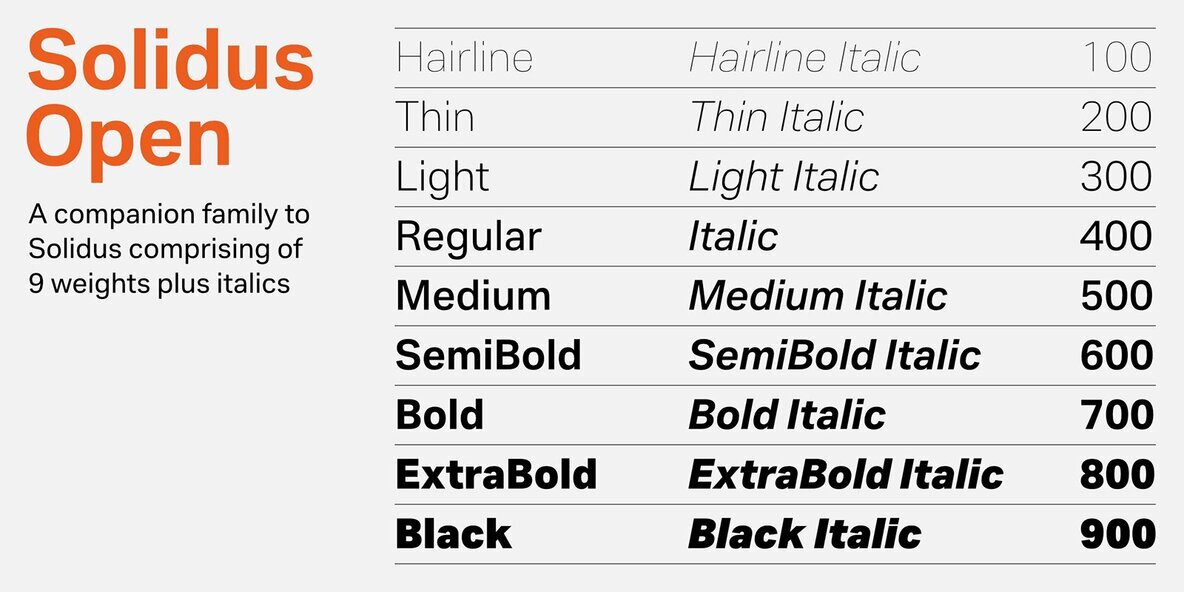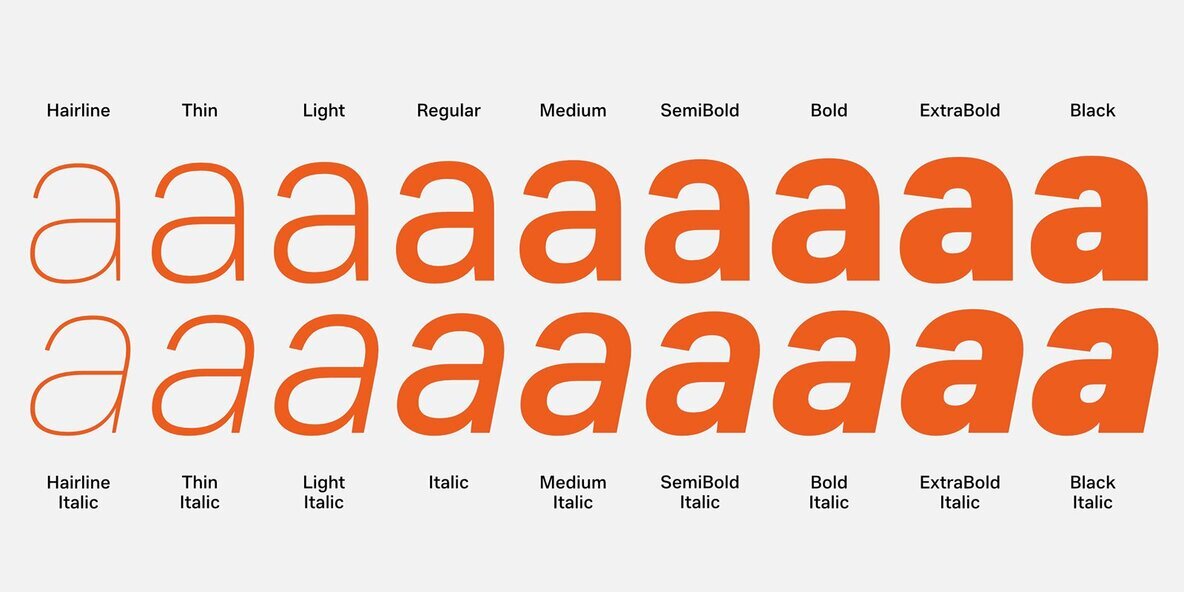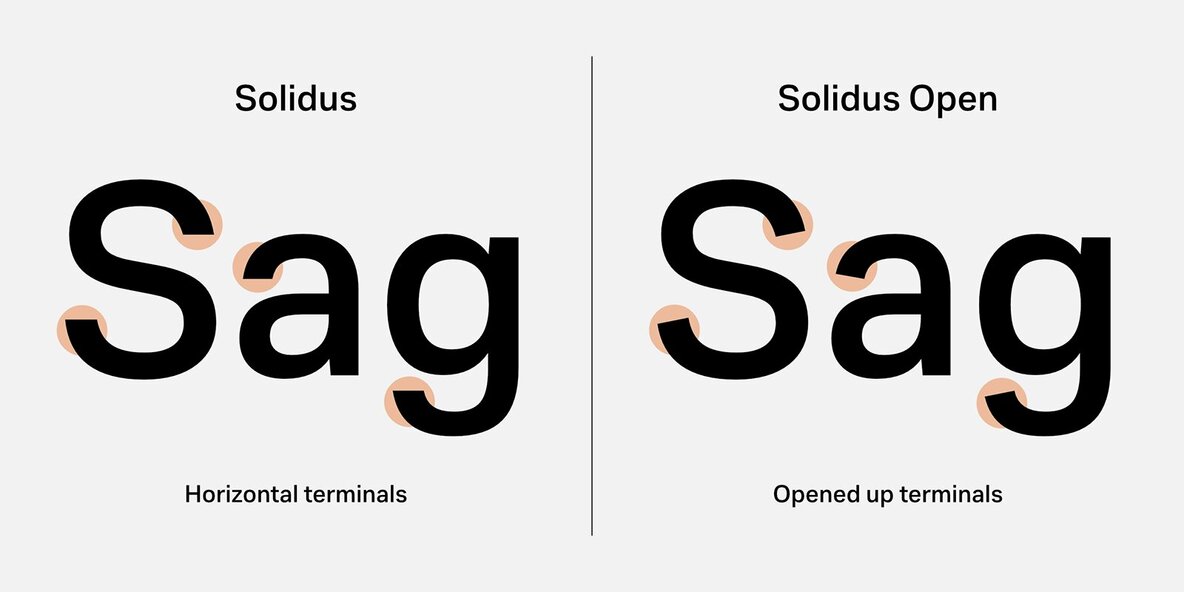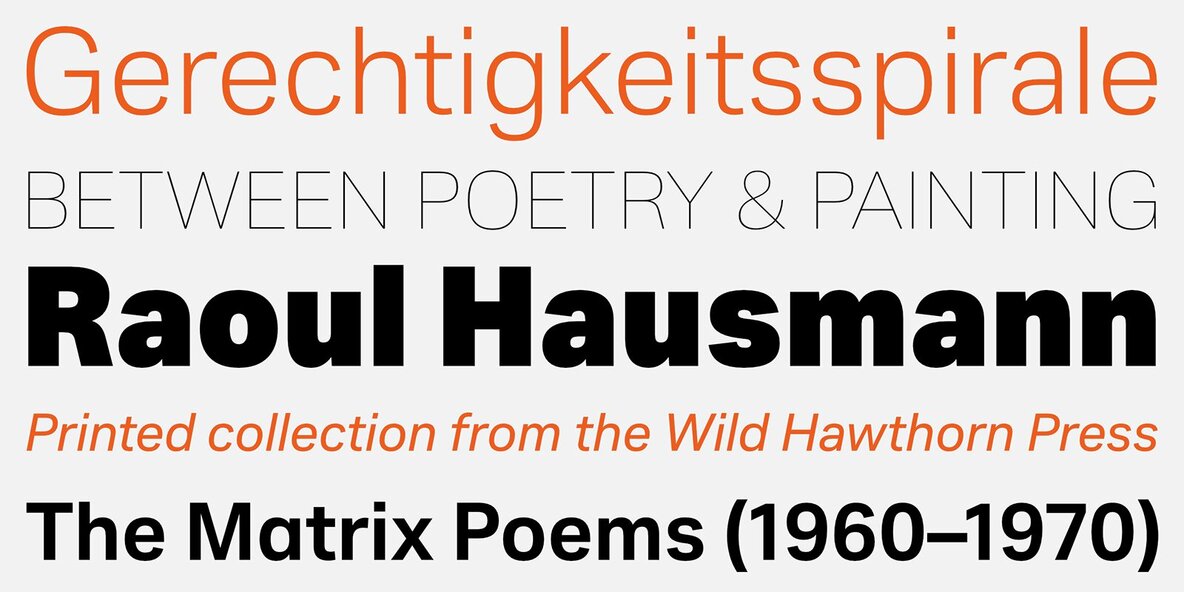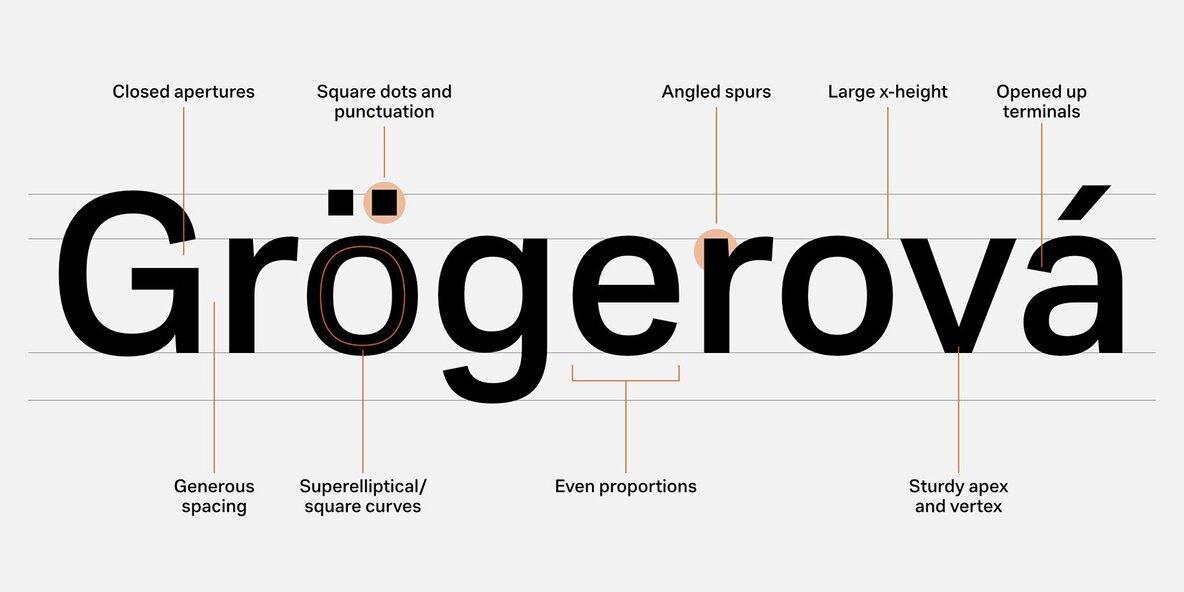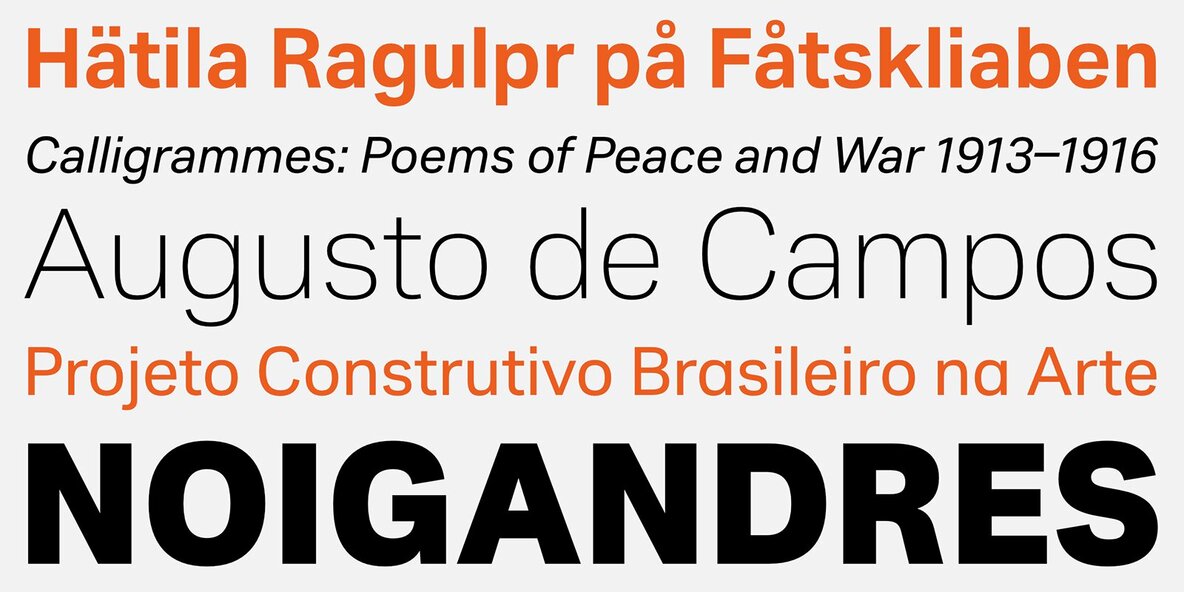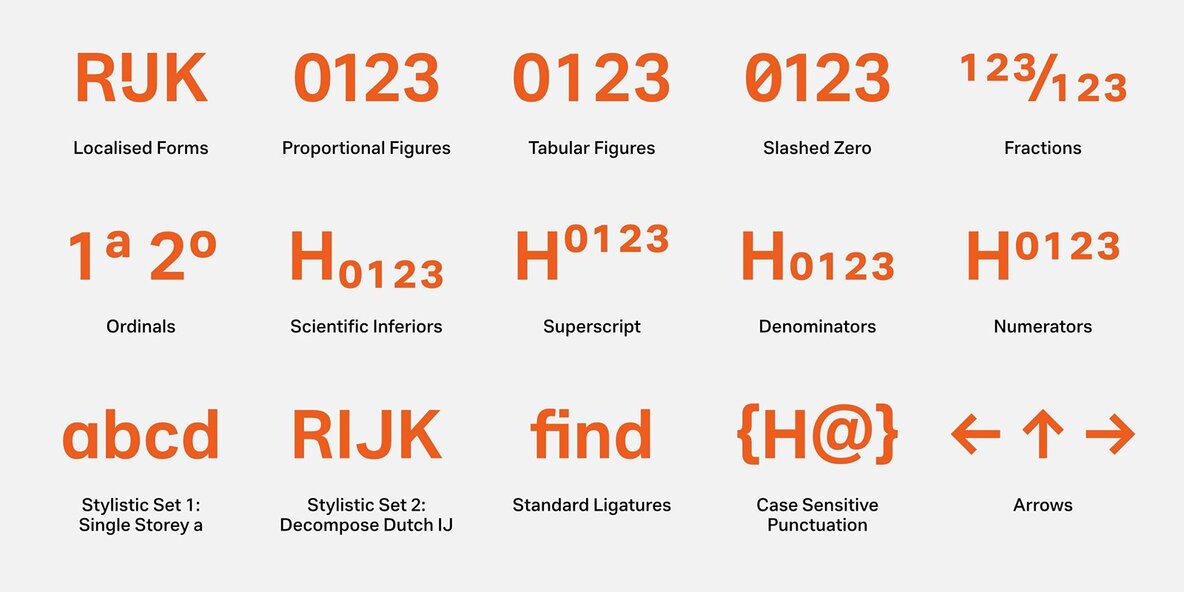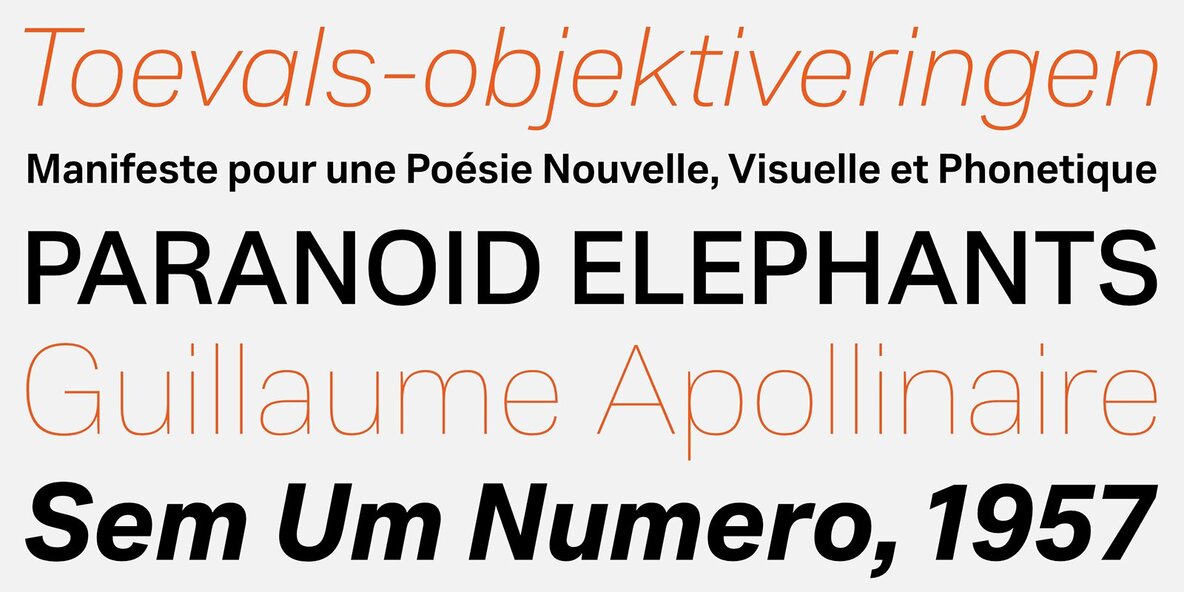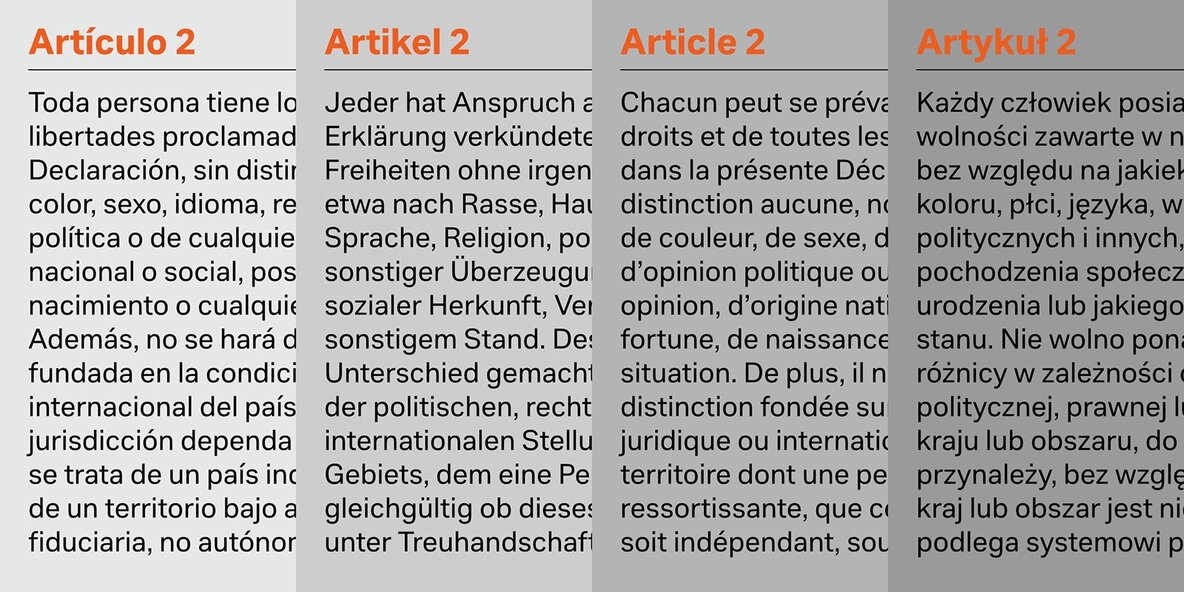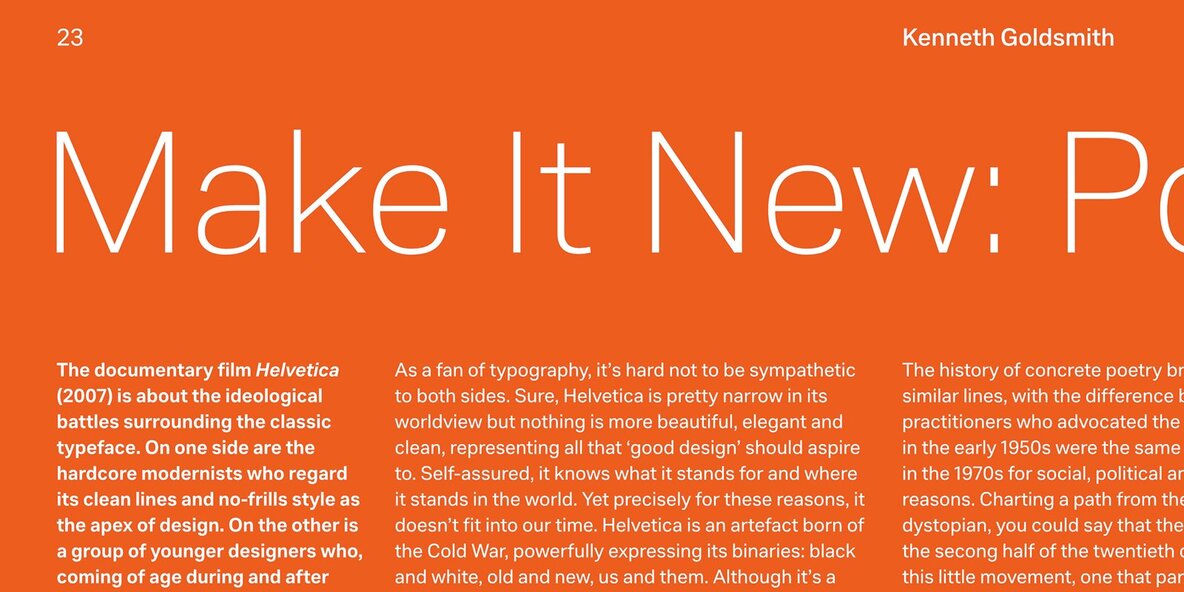
Solidus Open Font
Inspired by the heuristic typography of the Concrete Poetry movement, Solidus Open is a hardworking and unobtrusive sans in the Neo-grotesque style. Its simplified features, generous spacing and squarish curves imbue a sense of sobriety and allow the textual information to take centre stage, whether in body copy or at display sizes. Intended as a companion family to Solidus, Solidus Open has angled terminals which introduce more vigour to the letterforms and take it closer to a classic Grotesque in appearance. Both Solidus and Solidus Open possess the same horizontal and vertical metrics, so they can be used interchangeably to create tonal variation without impacting text flow. Solidus Open is available in a robust range of weights from a wafer-thin Hairline to a hefty Black, each with accompanying italics. As is typical of the Neo-grotesque style the italics are oblique (slanted) in construction and have the same advance width as the uprights. Each font supports 96 Latin-based languages and comes equipped with a range of useful OpenType features. Solidus Open is suitable for a wide range of applications and ships in both static and variable formats.